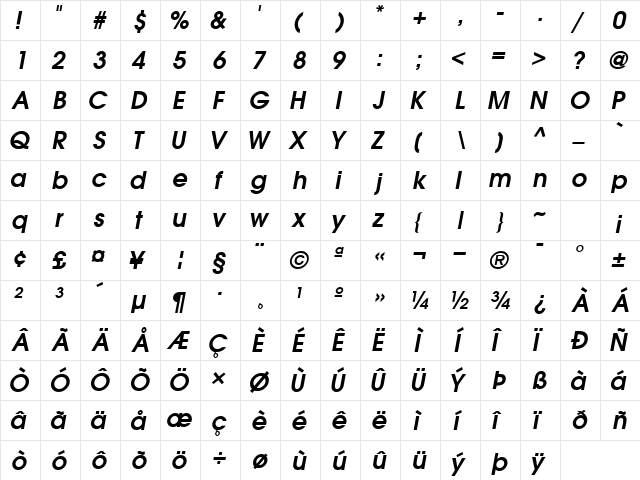
TrendexSSK SemiBoldItalic
Design Context for TrendexSSK Typeface
TrendexSSK offers clean, dependable letterforms without strong stylistic allegiance, making it a practical choice for designers who need flexibility. The slanted form adds forward momentum and visual energy. The heavy weight commands attention and anchors typographic hierarchies.
Pro Tip: Use TrendexSSK for emphasis, pull quotes, and subheadings where its slanted energy can add rhythm to the layout.